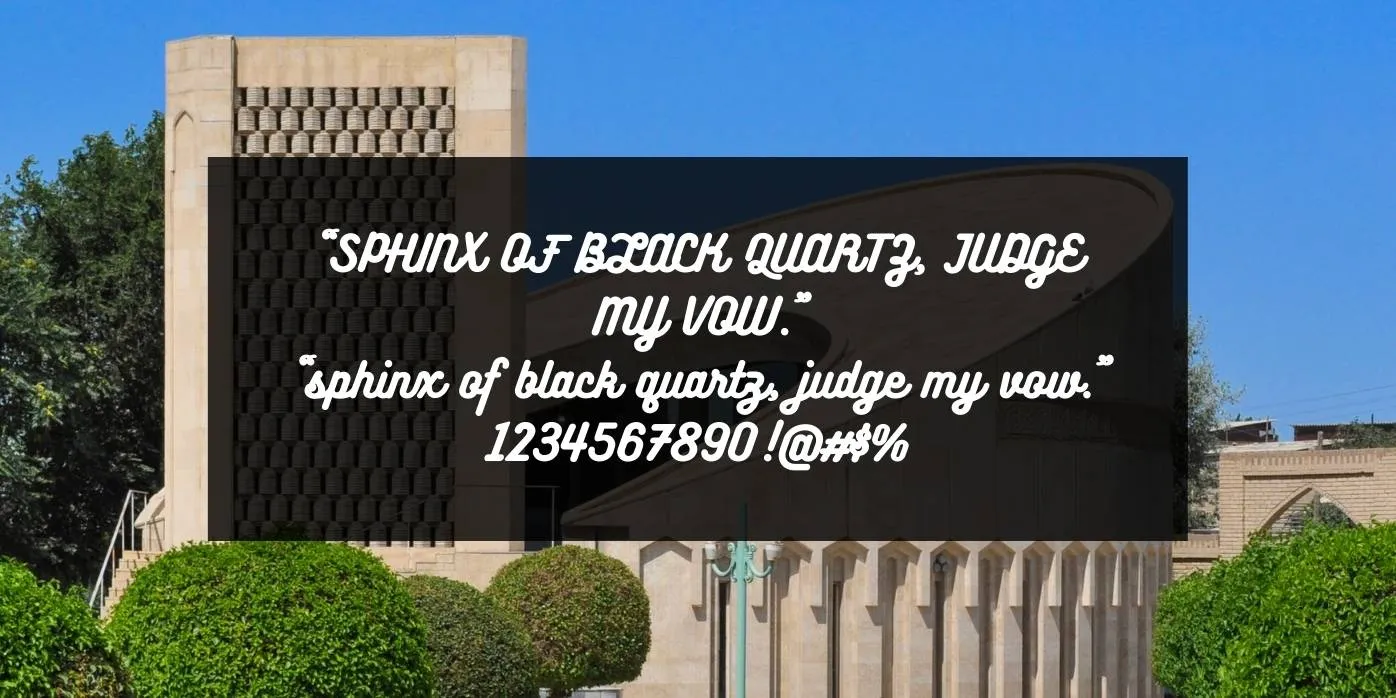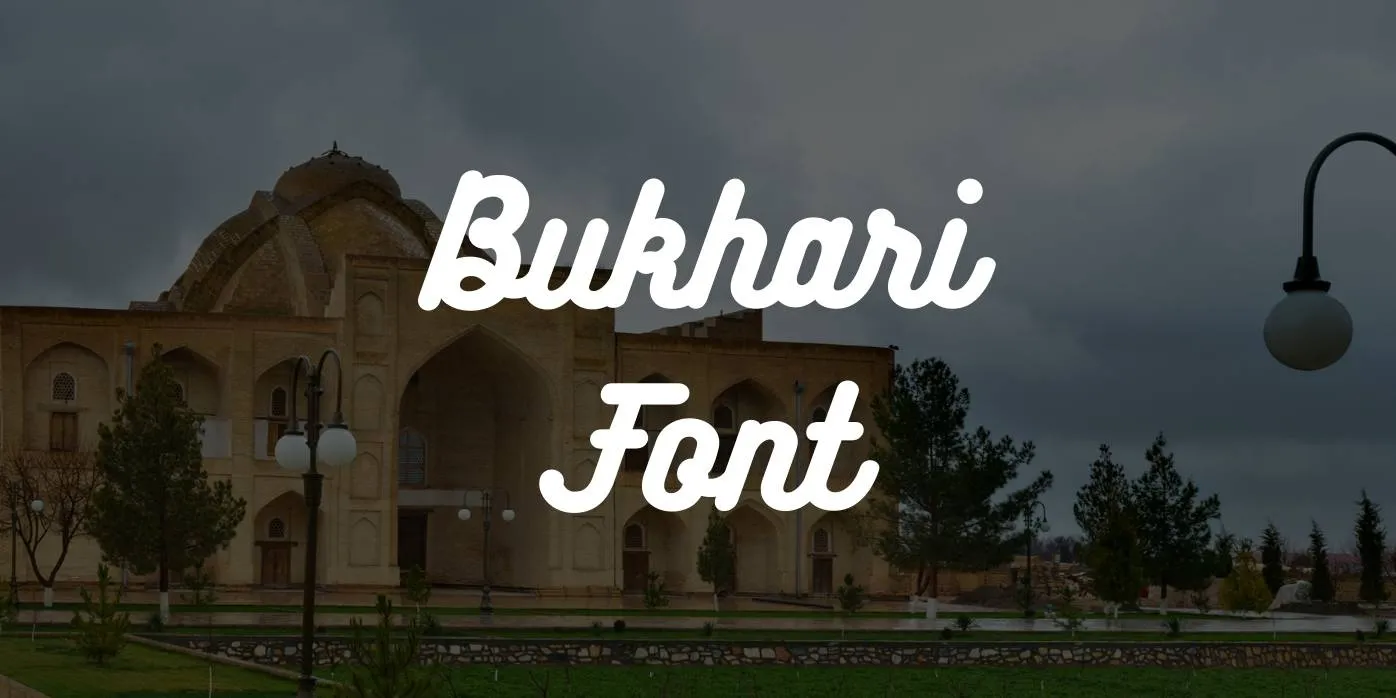
Bukhari Font
Today, we are consulting on the very famous typeface that is known by the name Bukhari Font. This attractive typeface belongs to the script typeface family. This font family was designed by Mikrojihad Typography. This classy font family consists of four different styles including Regular, Italic, Bold, and Bold Italic.
All of these styles have a unique look and they are perfect for creating any kind of design. For advanced uses, you need to use its similar hello sunshine font that has classic features. This cozy typeface has a very stylish look and it is perfect for making headlines, posters, logos, and much more. The best thing about this font family is that it is available for free for personal use.